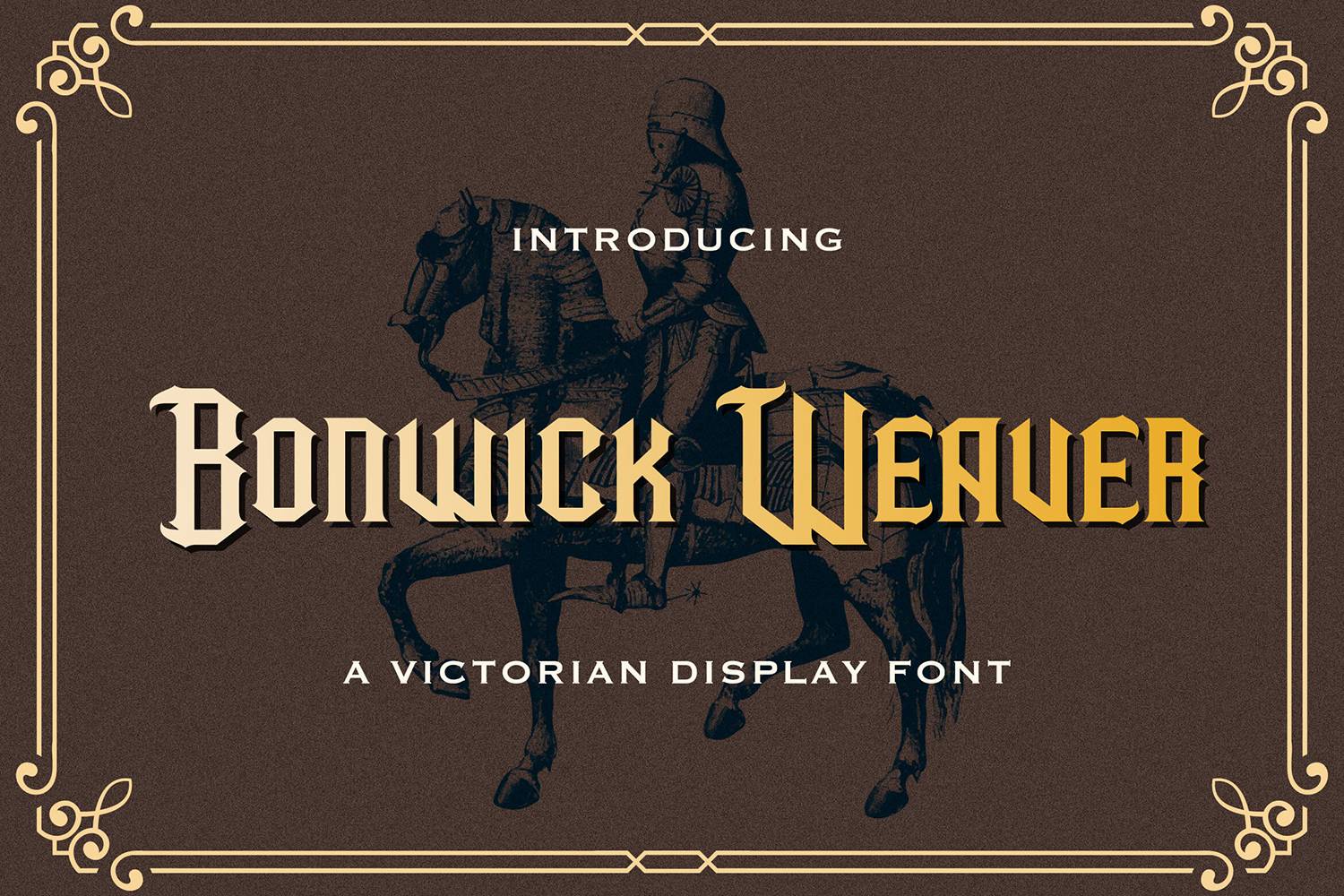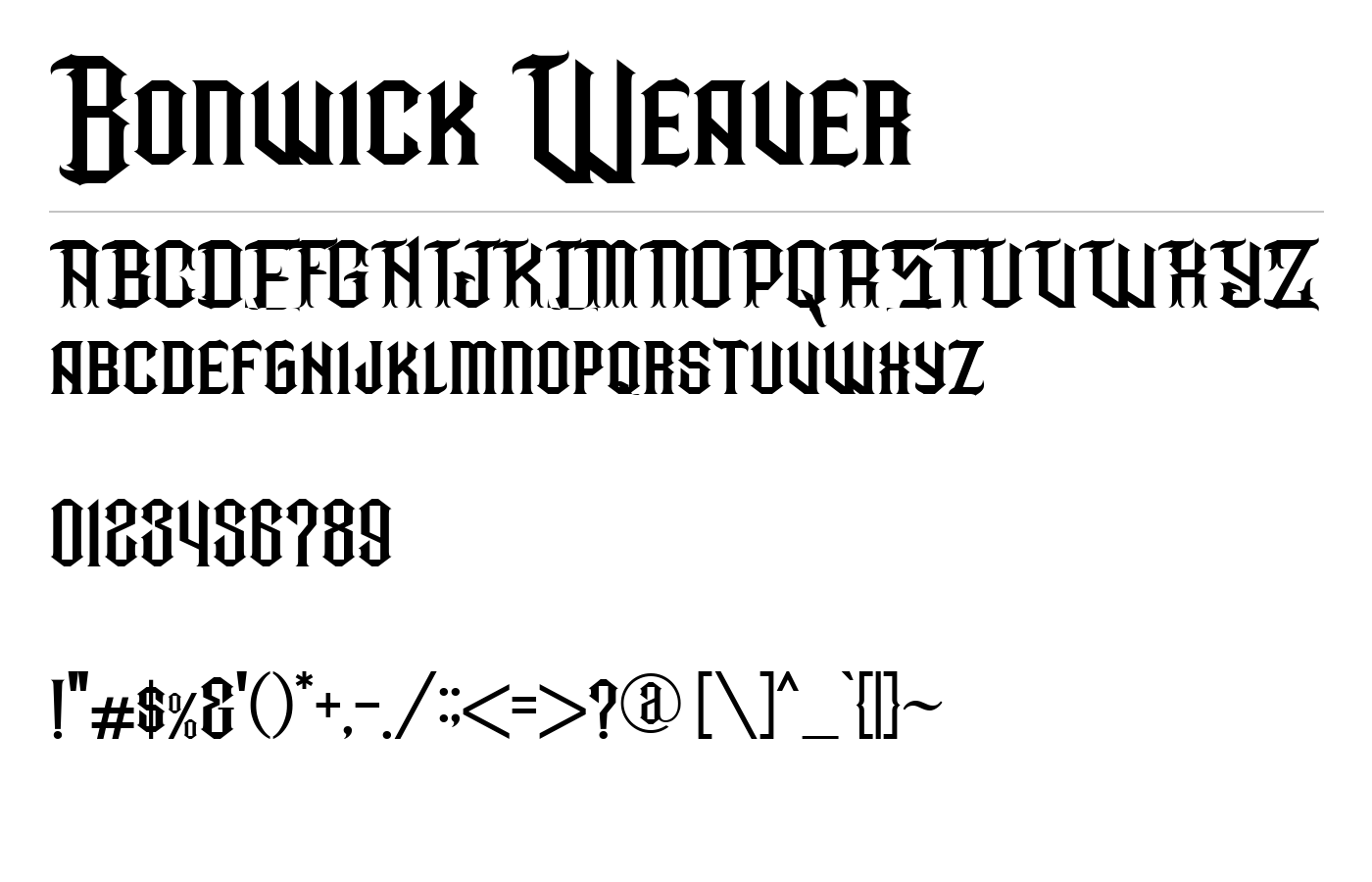
Bonwick Weaver is a bold, blackletter-inspired serif font with a strong, condensed structure and sharp, angular strokes that give it a dramatic and gothic feel. Its tall x-height and intricate details evoke a vintage, medieval atmosphere, making it perfect for branding that seeks to convey tradition, strength, and a touch of mystery, especially in headlines, logos, or decorative uses. This font stands out in designs where a powerful, historical character is desired.
Bonwick Weaver Font